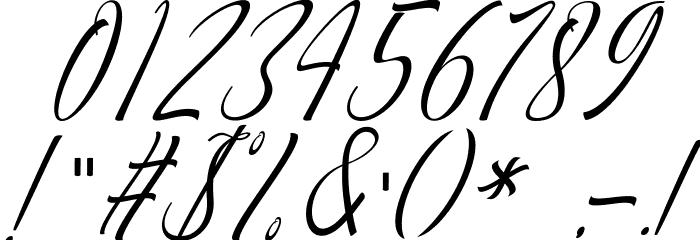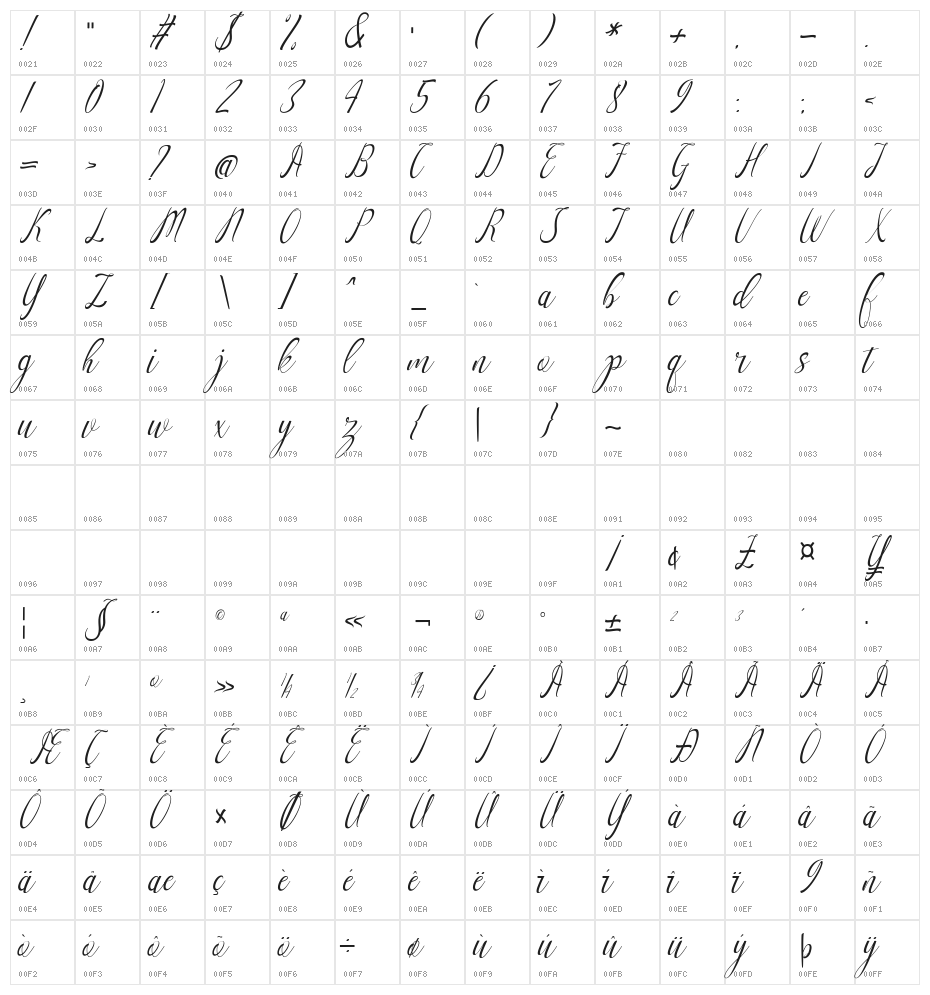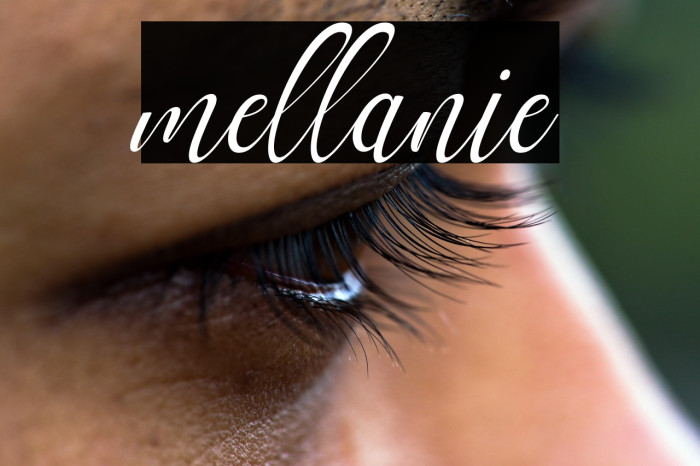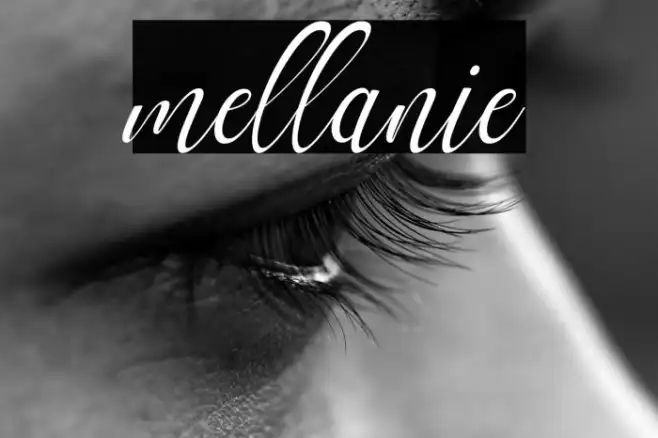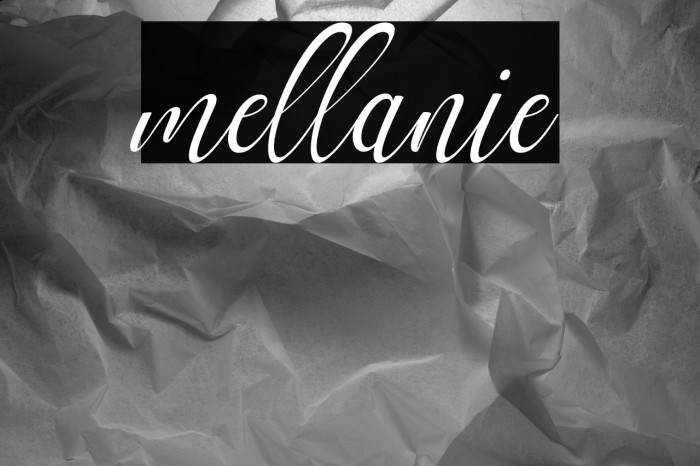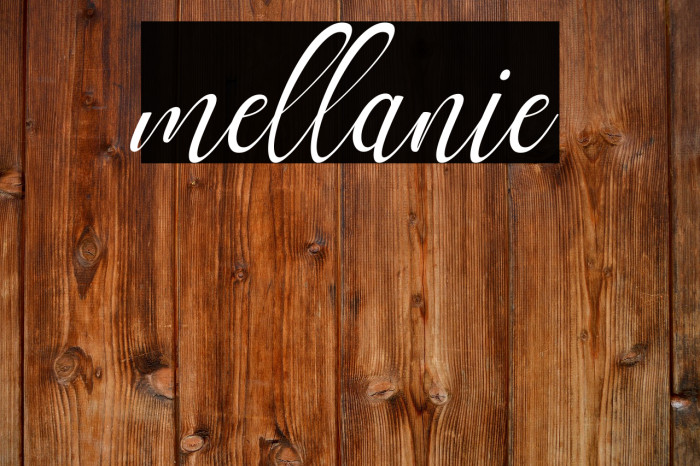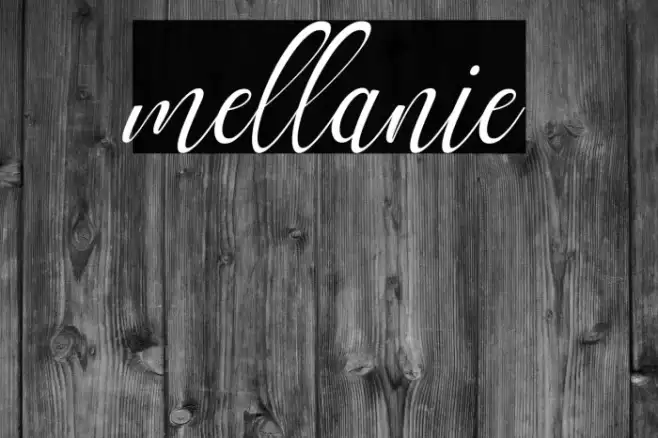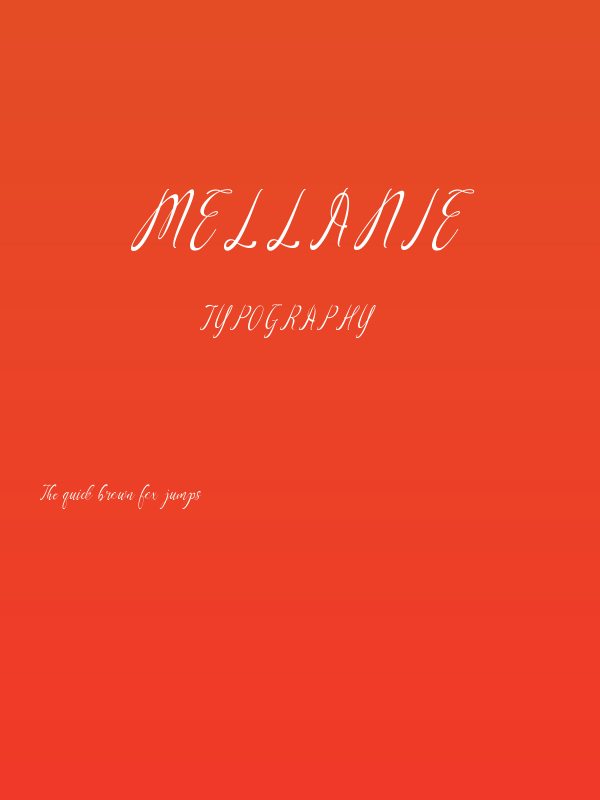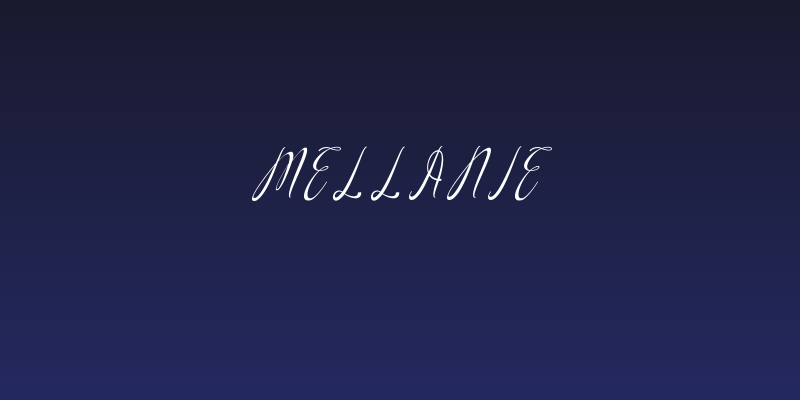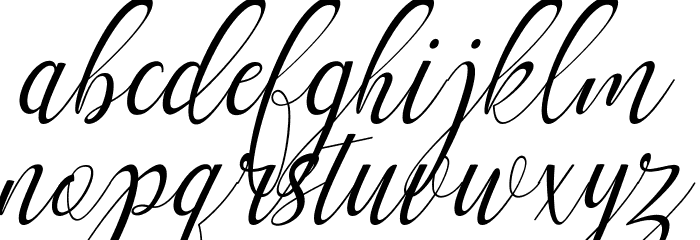
mellanie Font
mellanie Description
This elegant script font features a flowing, cursive style with a modern twist. The characters are connected, creating a seamless and fluid appearance. The uppercase letters are tall and slender, while the lowercase letters maintain a consistent height, enhancing readability. The font exhibits a slight slant, adding a dynamic and lively feel. The numerals are stylish and match the overall aesthetic, while the special characters are crafted with the same attention to detail. This font is perfect for projects that require a touch of sophistication and elegance.
Use CaseLogos, Invitations, Decorative text
Proposed ProjectsIdeal for wedding invitations, elegant branding, personal signatures, and decorative quotes.